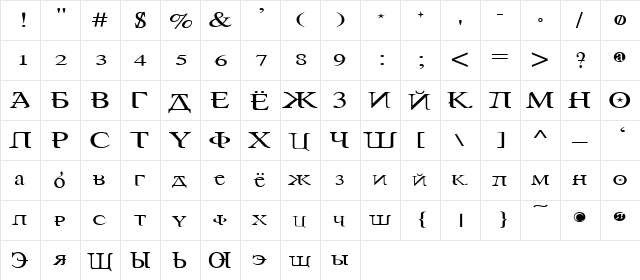
Tempo Regular
Design Context for Tempo Typeface
Tempo is a composed and adaptable typeface that performs quietly and consistently across a wide range of design contexts.